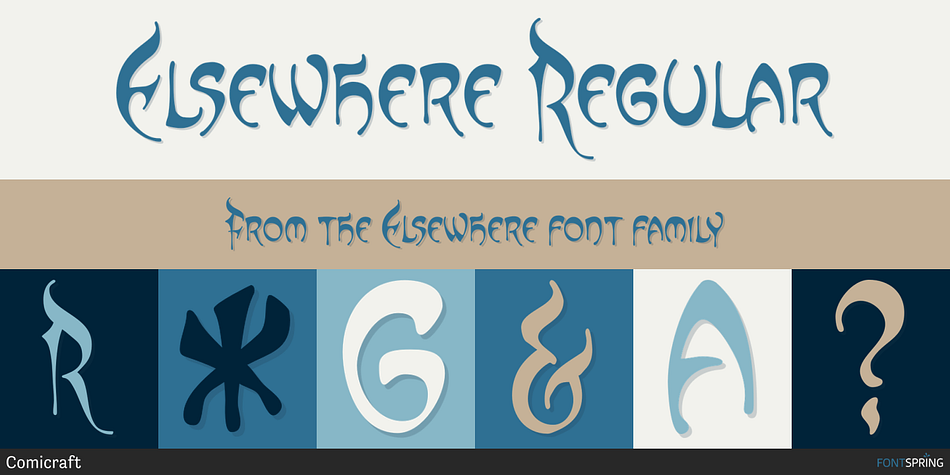
Elsewhere Regular
Designed by John Roshell, Elsewhere is a novelty font family published by Comicraft.
Someday, a long time from now, in a galaxy not so very far away, you’ll find yourself Suddenly transported to the nether- realms of Elsewhere, bathed in the light of the mystic moons of Meanwhile… While you’re waiting for that day, check out this font by John ‘JG’ Roshell. It may not provide you with the same transcendental experience, but JG assures us that it really is the next best thing.